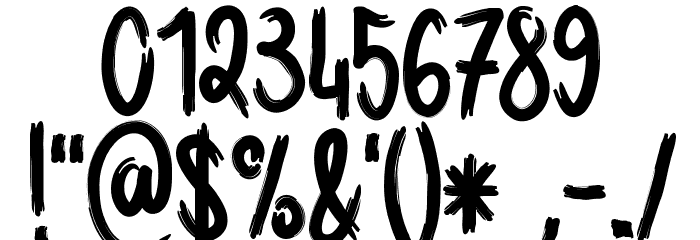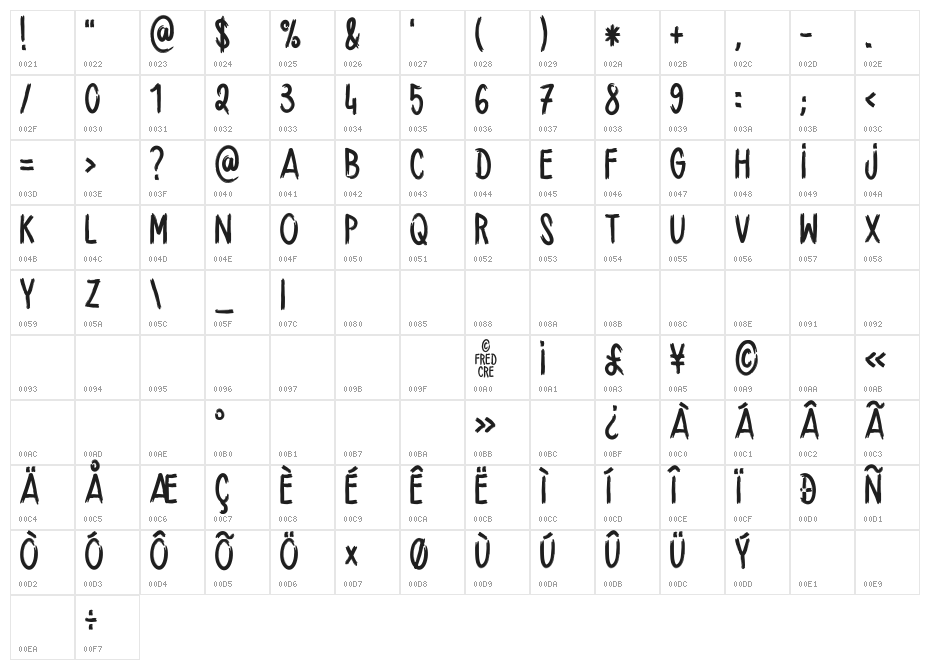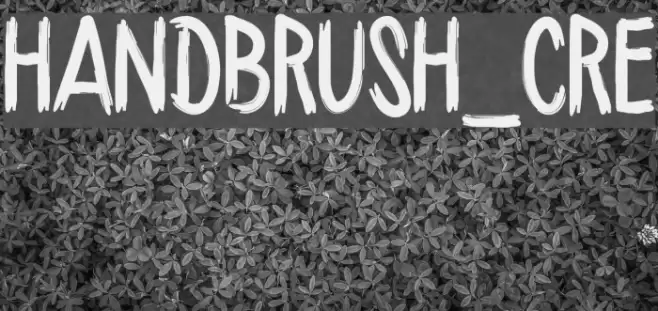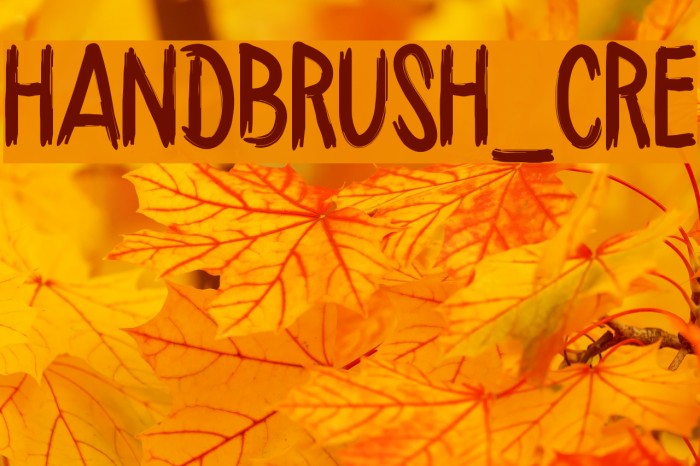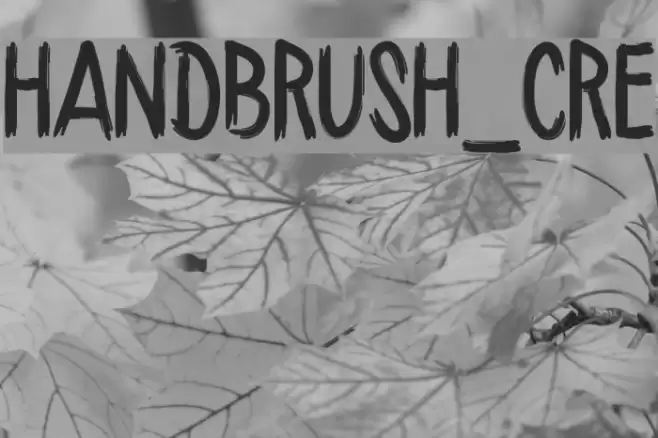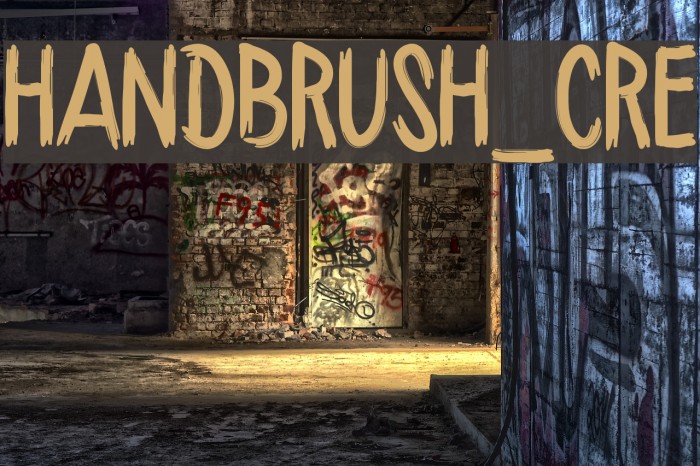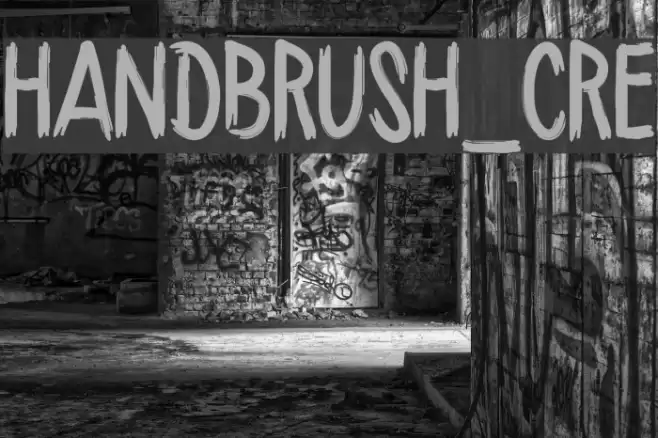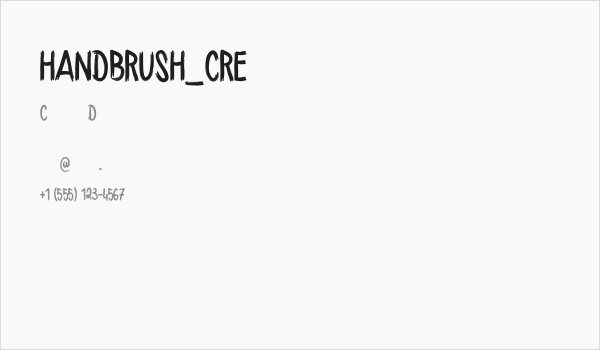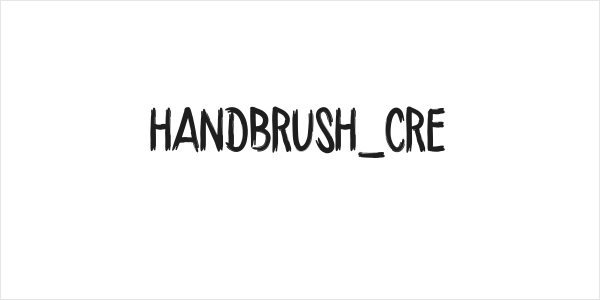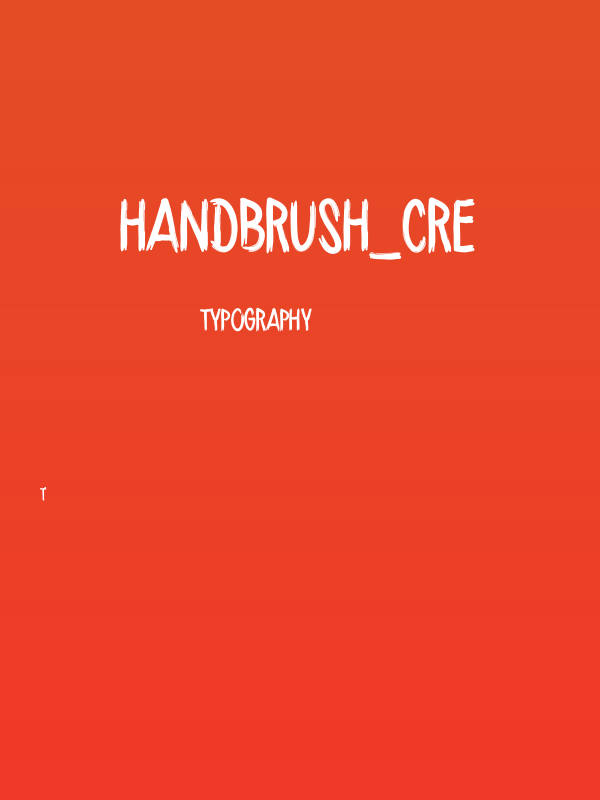
HANDBRUSH_CRE Font
HANDBRUSH_CRE Description
This font exudes a dynamic and energetic feel, characterized by its bold, brush-like strokes that mimic the appearance of hand-painted lettering. The uppercase and lowercase letters maintain a consistent style, with each character exhibiting a slightly irregular edge, enhancing the hand-drawn aesthetic. The numbers and special characters follow the same artistic approach, ensuring a cohesive look across all glyphs. This font is perfect for projects that require a personal touch, such as posters, invitations, or branding materials that aim to convey creativity and spontaneity.
Proposed ProjectsIdeal for posters, invitations, branding, and any creative projects needing a personal touch.